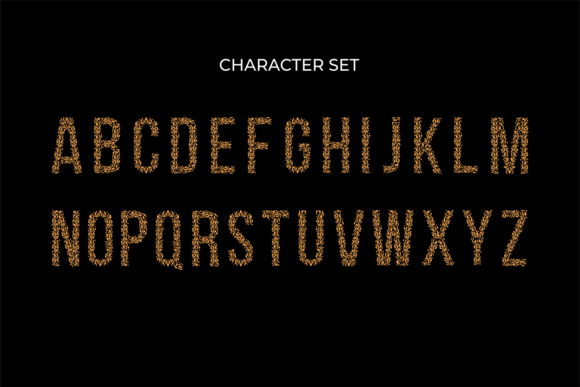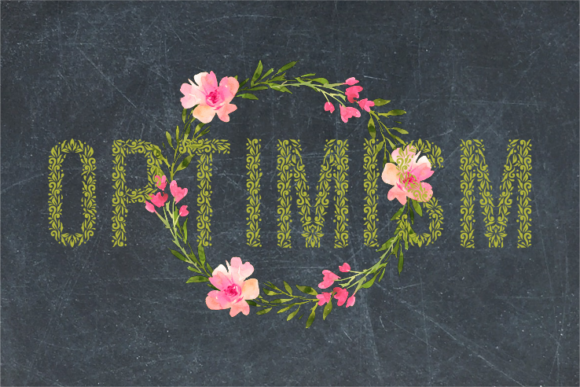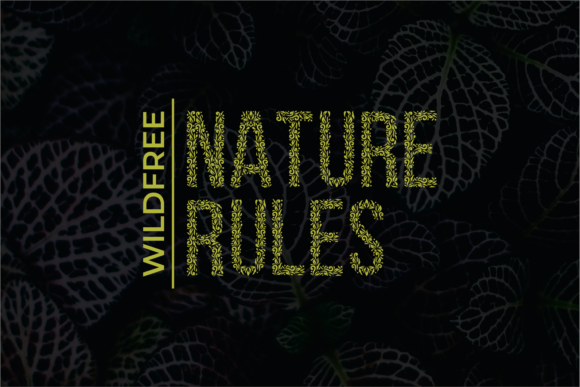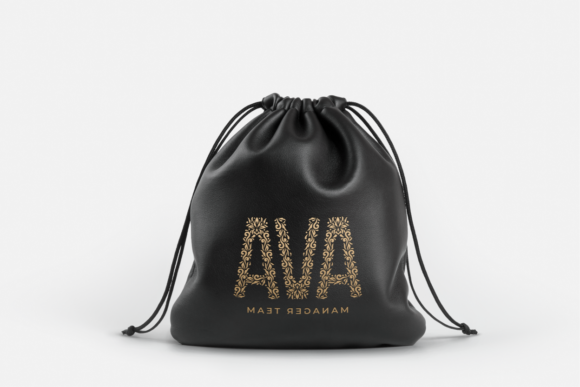
Introduction to Paraleaf Font
Have you ever been on a hike, surrounded by lush greenery, and felt inspired to bring a piece of nature into your creative project? That’s exactly what the Paraleaf Font does – it captures the essence of the natural world and brings it to your design.
As a designer, you’re always on the lookout for unique and high-quality design resources to elevate your work. And that’s where the Paraleaf Font comes in – an all-caps decorative font with an energetic feel that’s perfect for adding an organic touch to your projects. Whether you’re working on a free download or a commercial project, this font is sure to add a fresh and creative twist.
With its transparent background and versatile design, the Paraleaf Font is a valuable asset for any designer looking to infuse their work with a touch of nature’s beauty. In this article, we’ll delve into the world of this stunning font and explore its many uses and benefits.
Key Features of Paraleaf Font
- Unique, modern font with a transparent background, allowing for seamless integration with various design elements.
- Perfect for designers and artists looking for a high-quality, versatile font to elevate their creative project.
- Features a crisp, clear design with a resolution of 300 DPI, making it suitable for both digital and print applications.
- Includes a range of characters, including uppercase and lowercase letters, numbers, and punctuation marks, making it a comprehensive design resource.
Honest Review: Paraleaf Font
I recently came across the Paraleaf Font and was excited to give it a try in my latest creative project. After downloading and experimenting with it, I have to say that I’m quite impressed.
- ✨ High quality design: The Paraleaf Font has a crisp and clean design that looks amazing in print and digital formats.
- ✨ Versatile: The font is perfect for a wide range of creative projects, from logos and branding to titles and headings.
One thing to note is that the font comes with a transparent background, which can be a bit tricky to work with if you’re not familiar with design software.
- ⚠️ Limited customization options: While the Paraleaf Font is beautiful, it’s not super customizable, which may be a limitation for some designers.
Overall, I’m really impressed with the Paraleaf Font and would definitely recommend it to anyone looking for a high-quality design resource. It’s perfect for anyone working on a creative project and looking for a stylish and professional font.
Common Use Cases for Paraleaf Font
The Paraleaf Font is ideal for various applications, including branding, advertising, and editorial design. Its versatility and high quality make it a valuable asset for any designer or creative professional.
Does the Paraleaf Font include a transparent background?
Yes, the Paraleaf Font includes a transparent background, making it easy to use on any design background. This feature allows designers to focus on their creative project without worrying about font color or background compatibility issues.